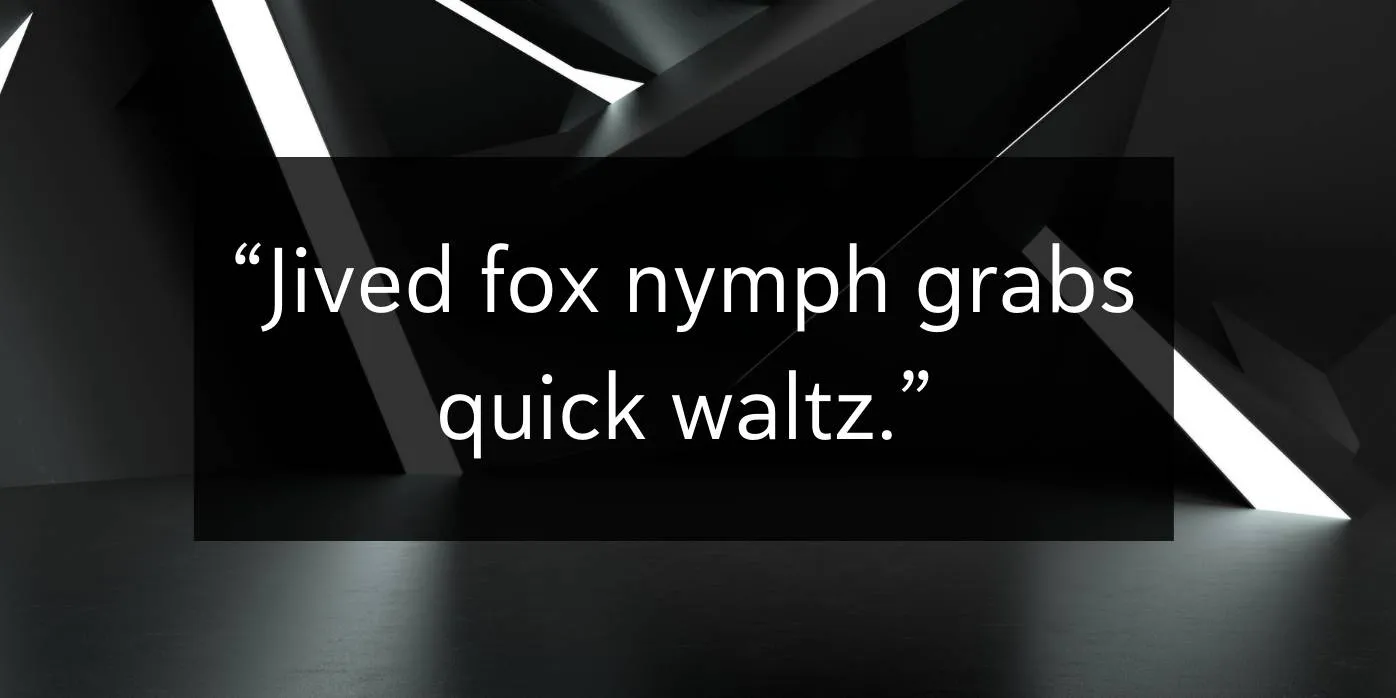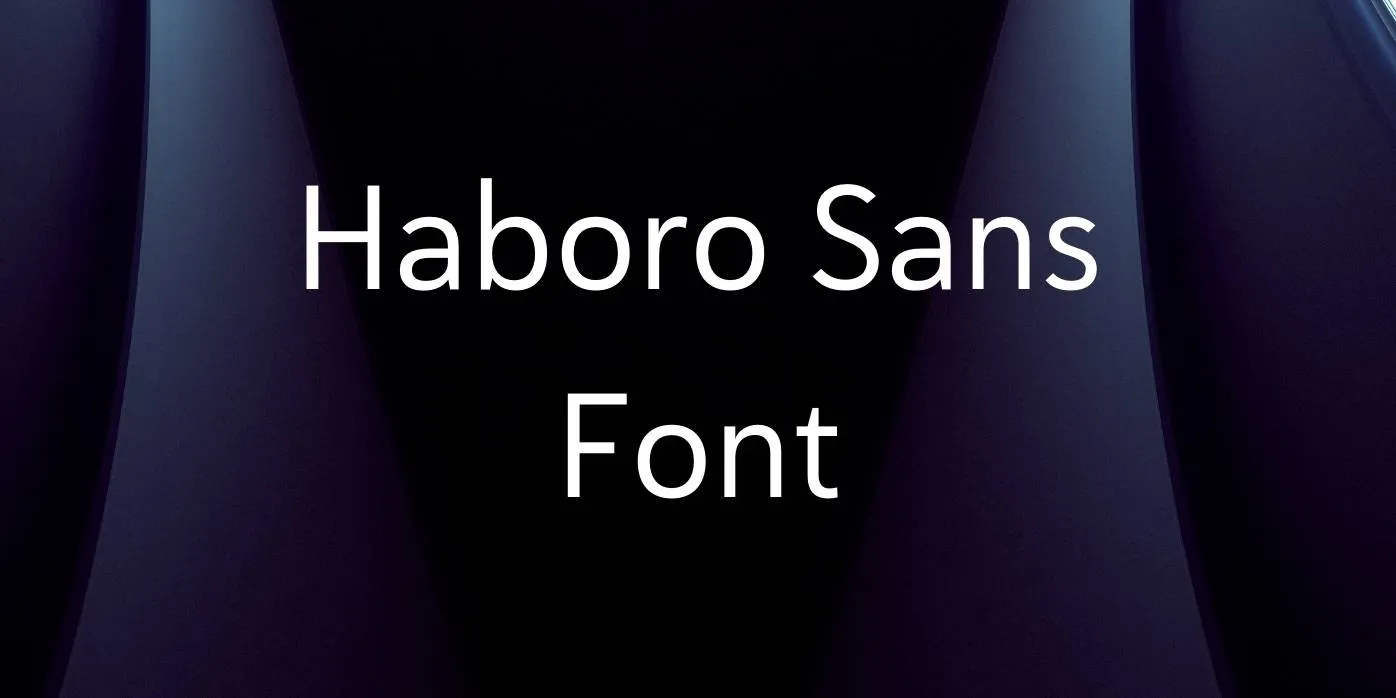
Haboro Sans Font
Today we present a new sans serif typeface that is famous with the name Haboro Sans Font. This tremendous typeface was developed by Jeremy Dooley. It is a great sans serif typeface that is perfect for any design project. This typeface has a unique style that makes it stand out from the rest.
The Haboro Sans Font is a great choice for any designer looking for a new San’s serif typeface. This tremendous typeface supports 68 different international languages. The Haboro Sans Font is available in 28 famous and classic styles. Some of its different styles are Regular, italic, light, Bold, and others.